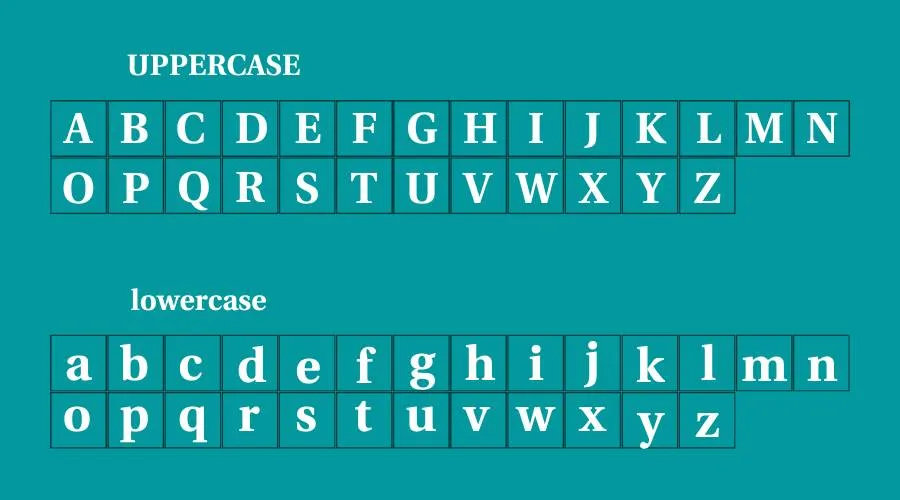
About Utopia Font
Utopia font is a well-designed and thoughtfully considered transitional serif typeface, designed by Robert Slimbach and released by Adobe Systems in 1989. The font has been used for various purposes, both for small and large projects.
The design also features old-style figures slightly smaller than the capitals, making them work well in combination with other typefaces, especially in display typography. Overall, this typeface is a beautiful and versatile typeface that has perfect for any project from a printing project to a digital poster designing, etc.